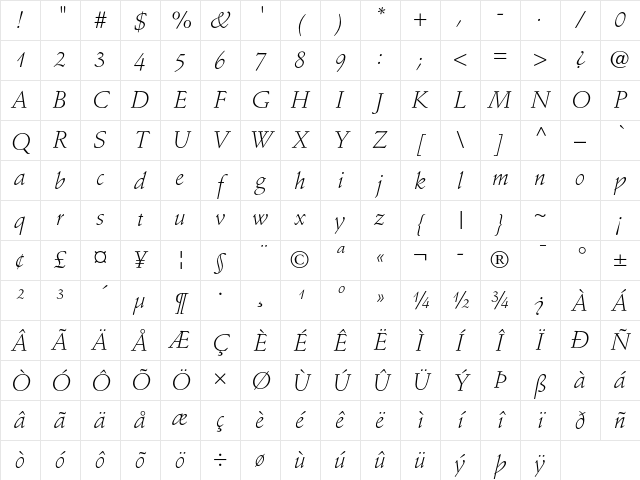
Stempel Schneidler Std Light Italic
Designer: F.H. Ernst Schneidler
Design Context for Stempel Schneidler Std
Stempel Schneidler Std is a composed and adaptable typeface that performs quietly and consistently across a wide range of design contexts. The slanted form adds forward momentum and visual energy. Its slender proportions lend an understated elegance to any composition.